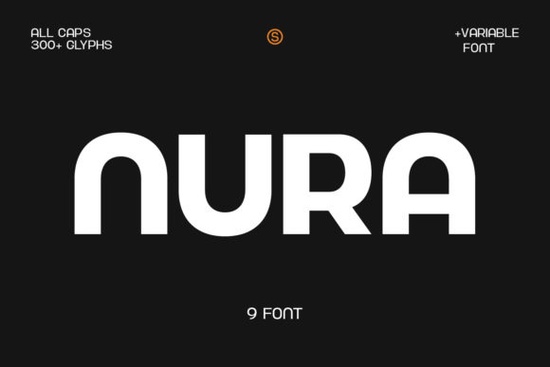
If you have been searching for a typeface that balances professionalism with a modern, clean aesthetic, the Nura Font is a strong contender. It is a simple and neat sans serif font designed to handle a wide variety of creative tasks without overpowering the rest of your design. Whether you are creating a logo for a new startup or designing a poster for a local event, this typeface offers the clarity and structure needed to make your message stand out.
What makes this typeface suitable for branding?
Branding requires consistency and clarity. When a customer sees a logo or a headline, they need to understand the brand's identity instantly. Nura excels here because it avoids unnecessary decoration. It relies on strong, blocky letterforms that convey stability and trust.
For small business owners, this is crucial. You do not want your packaging or website header to look messy or difficult to read. This font provides:
- High legibility: The open shapes of the letters make them easy to read from a distance.
- Neutral character: Because it is not overly stylized, it fits well with many different color palettes and graphic styles.
- Professional weight: The thickness of the strokes gives it a sense of authority, which is perfect for corporate identities or serious product labels.
How can print-on-demand sellers use this font?
For those selling on platforms like Etsy, Redbubble, or Amazon Merch, typography is often the main selling point of a design. T-shirts, mugs, and tote bags often feature short, punchy phrases. This is where a neat sans serif shines.
Because the letters are uniform and clean, they work exceptionally well for block letters and subheadings on apparel. You can layer this font over complex illustrations without creating visual clutter. It allows the graphic to breathe while ensuring the text remains the focal point. If you are creating a design that says something like "Stay Creative" or "Coffee First," the straightforward nature of this typeface ensures the message is delivered clearly.
What are the best pairing combinations?
While Nura is excellent on its own for headlines, complex designs often require a secondary font to create contrast. A common design strategy is to pair a structured sans serif with something more organic or fluid.
Is this font easy to work with for beginners?
Yes. One of the biggest hurdles for creative hobbyists is dealing with fonts that have weird kerning or irregular spacing. This typeface is designed to be user-friendly. The spacing between characters is generally even, which means you spend less time manually adjusting letter spacing in software like Canva, Photoshop, or Illustrator.
It is also versatile enough for various file formats. Whether you are exporting a PNG for social media or a vector PDF for a large format print shop, the font maintains its integrity. This reliability saves time during the production process, allowing you to focus more on the creative aspect of your project rather than troubleshooting technical issues.
Where does this font fit in modern design trends?
Minimalism continues to be a dominant trend in web and graphic design. Users prefer interfaces that are clean and easy to navigate. Nura fits perfectly into this aesthetic. It strips away the noise, leaving only the essential information.
This makes it an excellent choice for:
- Website Headers: It loads quickly and looks sharp on mobile devices.
- Social Media Graphics: It stands out against busy backgrounds on Instagram or Pinterest.
- Packaging Labels: It provides a modern, "clean beauty" or "artisanal" look that is popular in consumer goods.
Ultimately, the value of a font lies in how well it serves your specific project needs. If you need a workhorse typeface that handles headlines, logos, and body text with equal competence, this is a solid investment for your design toolkit.
Quick Design Checklist
- Check Contrast: Ensure your text color contrasts well with the background, especially since the font is bold.
- Test Readability: View your design on a mobile screen to ensure the block letters remain clear at smaller sizes.
- Pair Wisely: If using a second font, make sure it doesn't compete for attention; let Nura handle the heavy lifting for headlines.